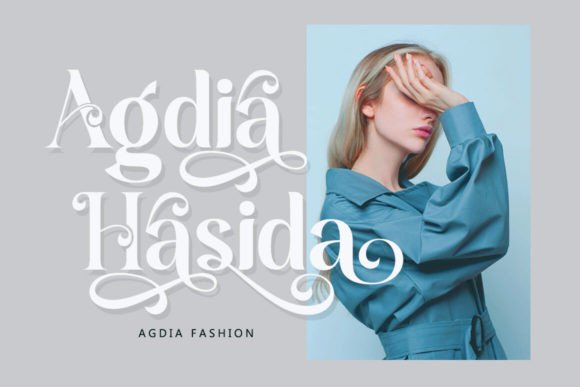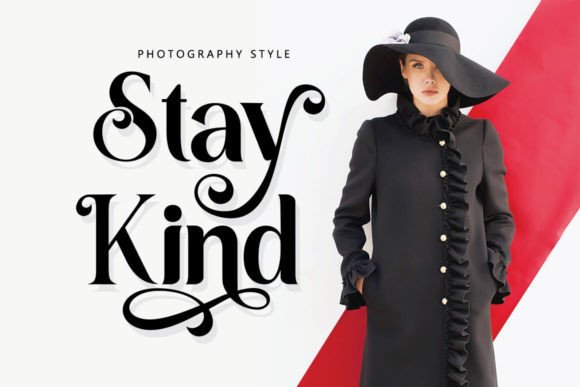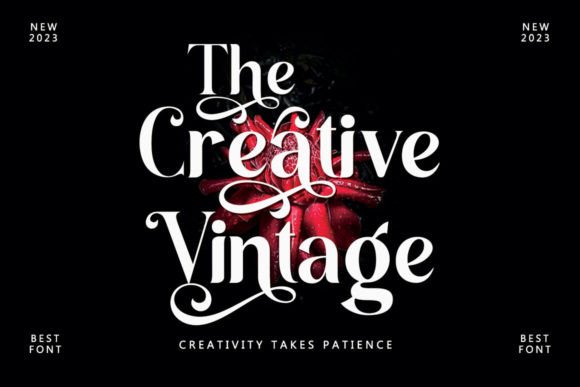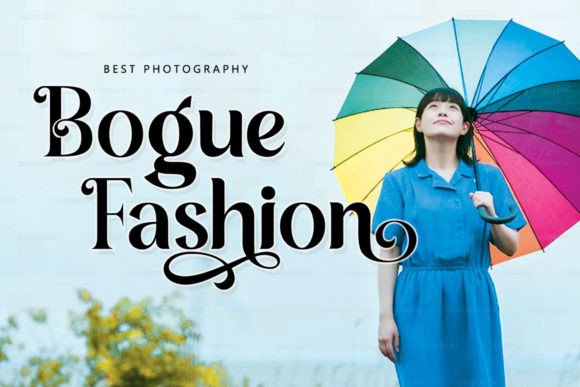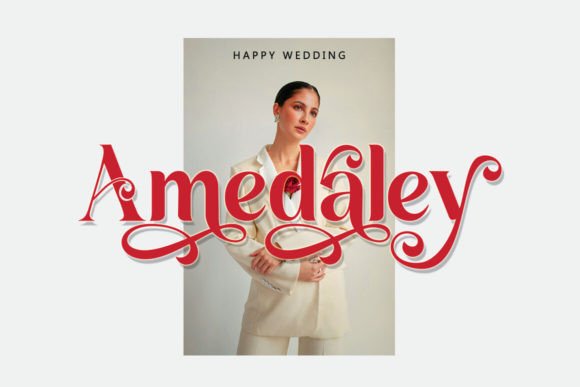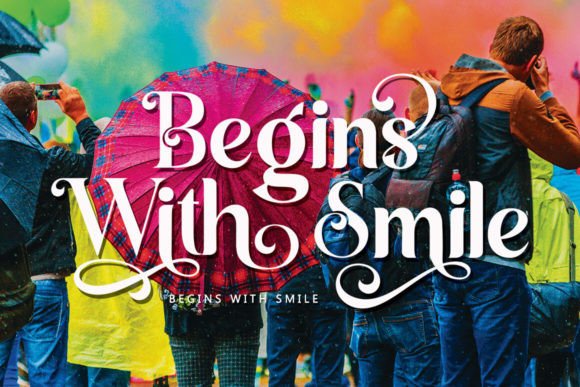
Introduction to Rainy Seasons Font
Rainy Seasons is a beautiful and versatile serif font.
This font is characterized by a serif style with a luxurious style in a modern form, but also a friendly and cheerful style in bold, Rainy Seasons has glyphs to give crafters more choices in designing This modern style will make a design appear more classy, elegant, unique, and edgy.